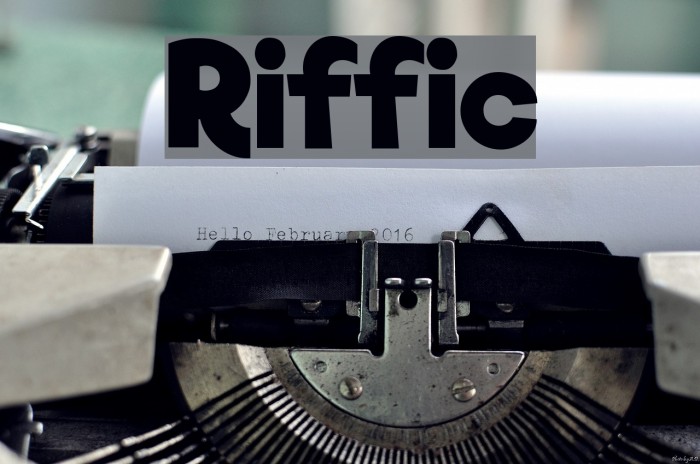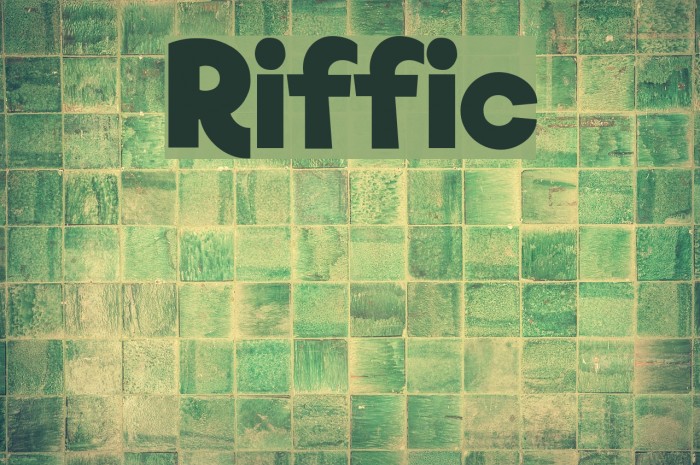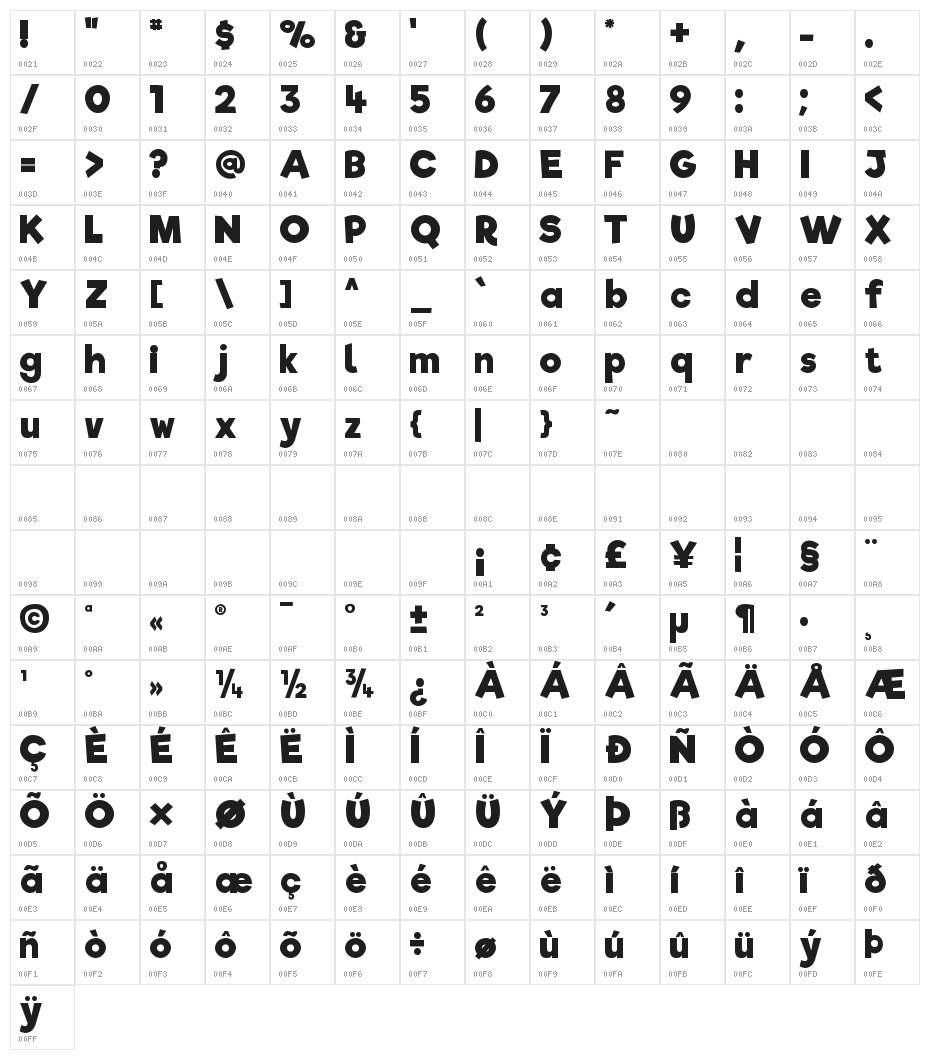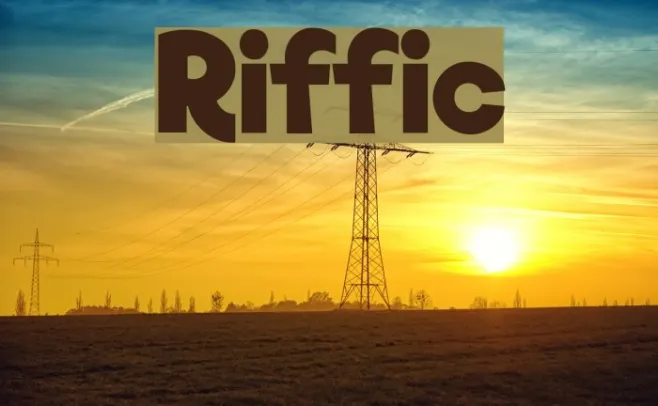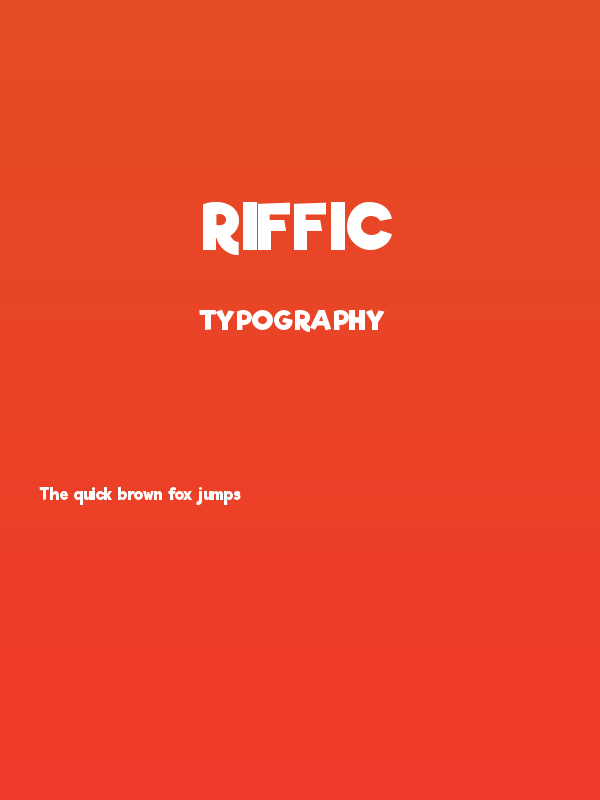
Riffic Font
This font features bold, rounded characters with a playful and modern aesthetic. The letters are evenly weighted, providing a strong and consistent appearance across both uppercase and lowercase alphabets. The numbers and special characters maintain the same boldness, ensuring uniformity throughout. The rounded edges give it a friendly and approachable feel, making it suitable for a variety of design projects. Its clear and legible style makes it ideal for headlines and attention-grabbing text, while the boldness ensures it stands out in any context.
A bold, rounded font with a playful and modern style.
- Proposed Projects: Ideal for children's books, playful branding, posters, and headlines.